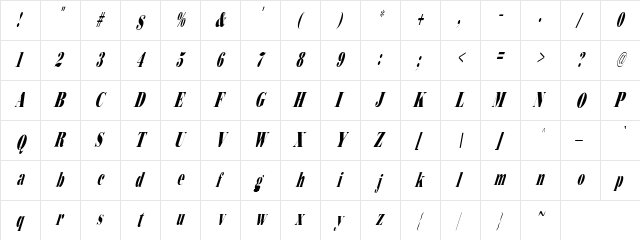
Bodidly-Conde 2 Regular Font Preview
Bodidly-Conde 2 Regular
Design Context for Bodidly-Conde 2 Typeface
Bodidly-Conde 2 offers clean, dependable letterforms without strong stylistic allegiance, making it a practical choice for designers who need flexibility. The condensed width makes it efficient for tight spaces without sacrificing legibility.